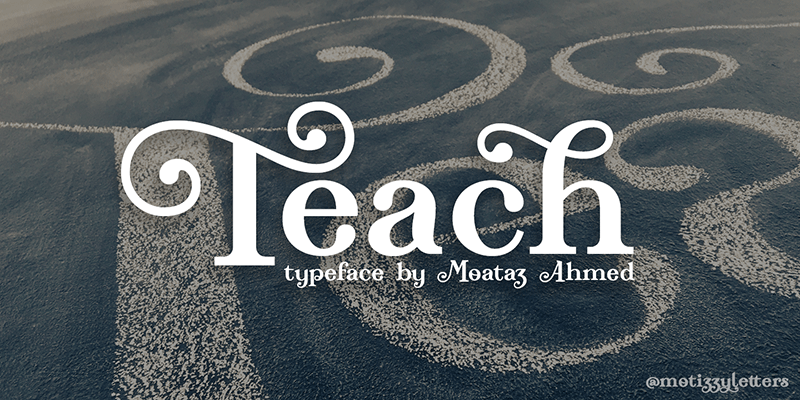
Preview and download Teach Font. Created by Roland Huse Design in Fancy Retro styles with Demo license.
TEACH is a fantasy movie style serif font created and designed by Moataz Ahmed. Manufactured by Roland H�se This is the demo version of this font, full version contains all latin language accented characters for Western and Eastern European languages. And a lot of stylistic and contextual alternates and ligatures for connecting pairs. For full version and a commercial license of this font please visit http://www.moatazahmed.com You MAY NOT sell this font or claim them as your own. You MAY NOT edit or rename this font. You MAY NOT redistribute this font. Thank you I hope you like this font! Motizzy Instagram: @motizzyletters |